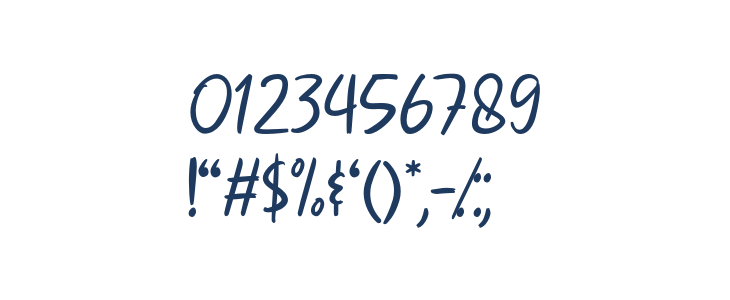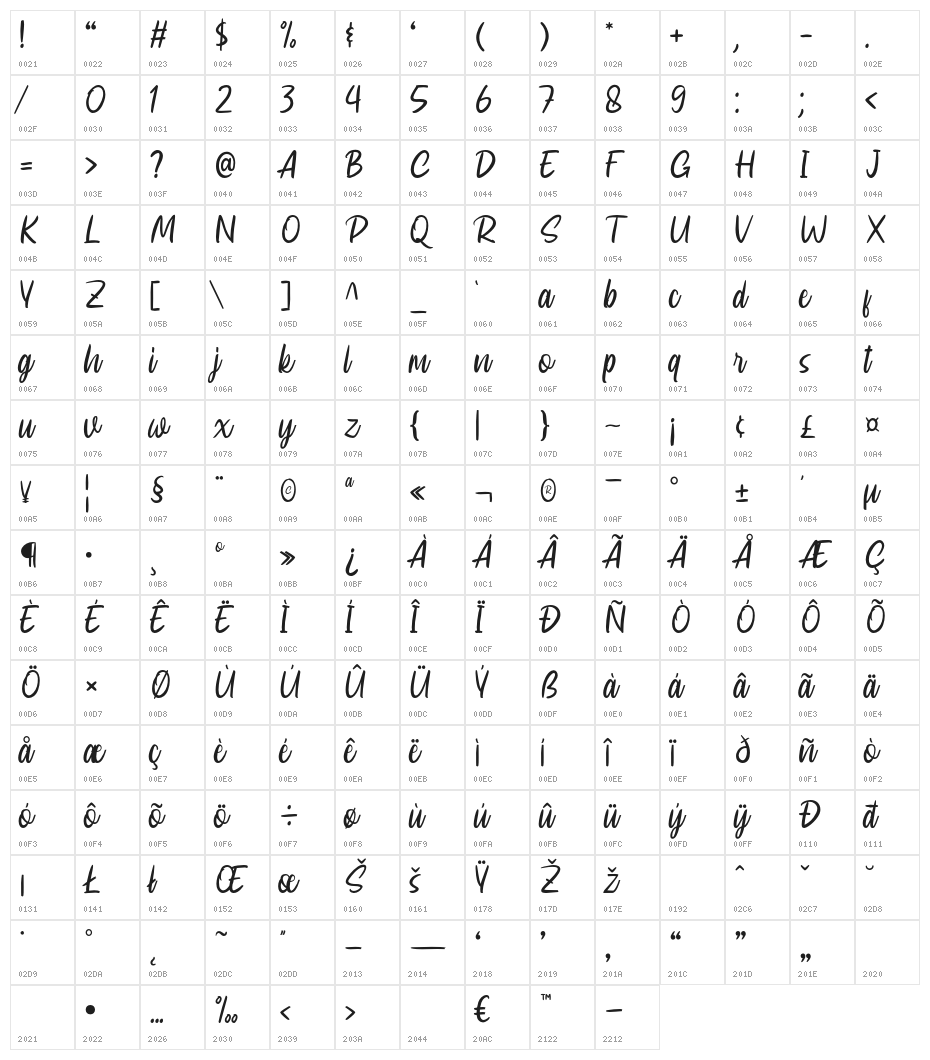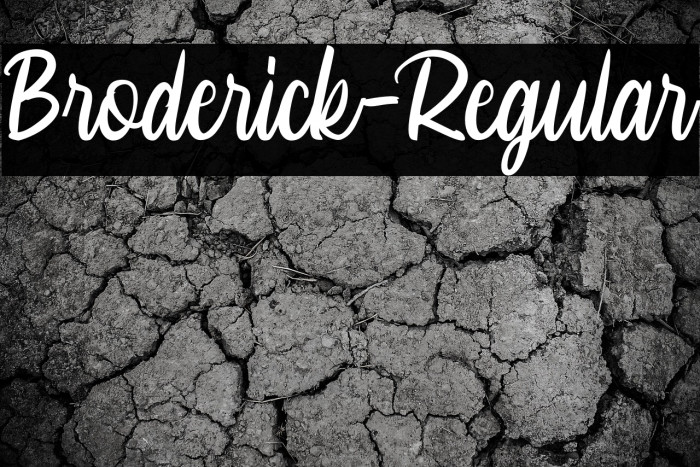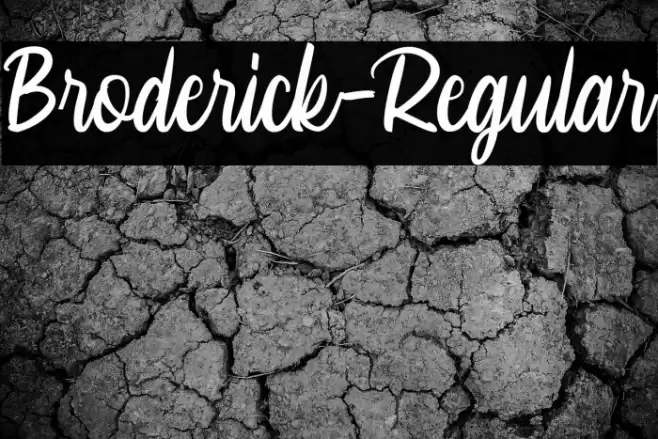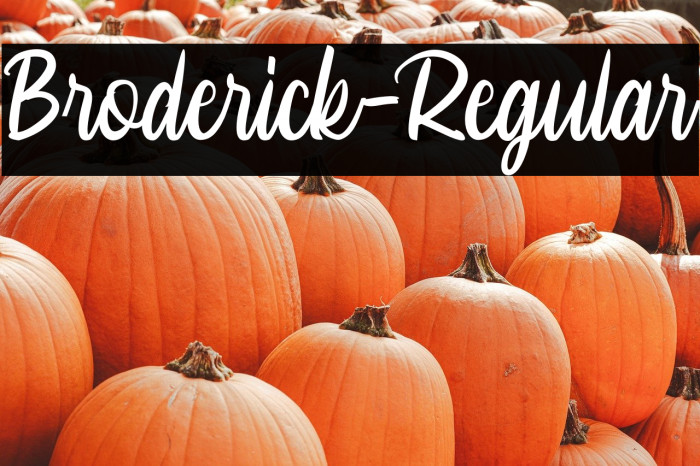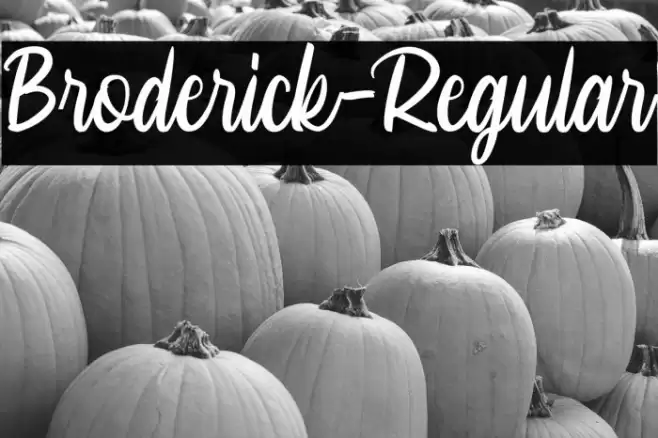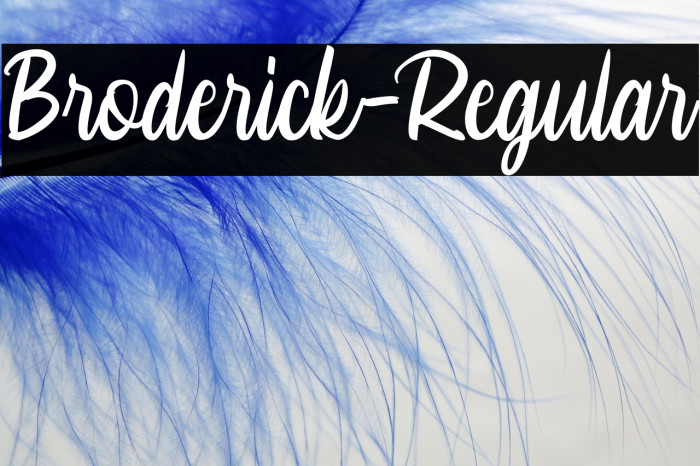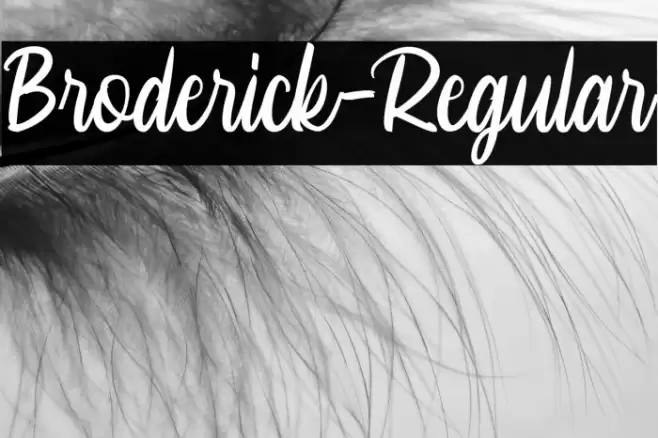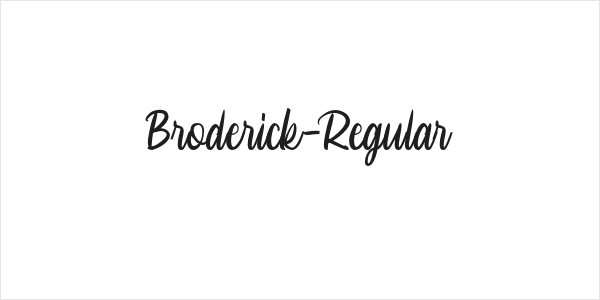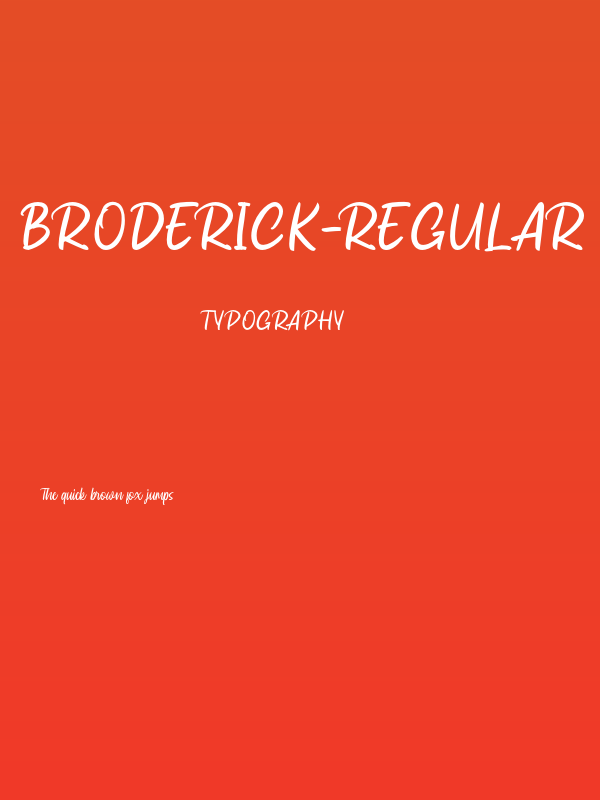
Broderick-Regular Font
Broderick-Regular Description
This font exhibits a dynamic and flowing script style, characterized by its smooth, cursive strokes that convey a sense of elegance and fluidity. The uppercase letters are slightly slanted, with a consistent stroke width that maintains readability while adding a touch of sophistication. The lowercase letters are more connected, enhancing the script's natural handwriting appeal. The numerals are clear and legible, matching the overall style with their slightly curved lines. Special characters are well-integrated, maintaining the font's cohesive look. This font's design is suitable for projects that require a personal, yet professional touch.